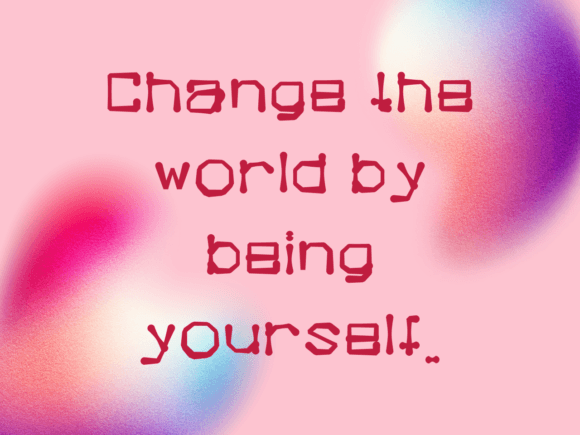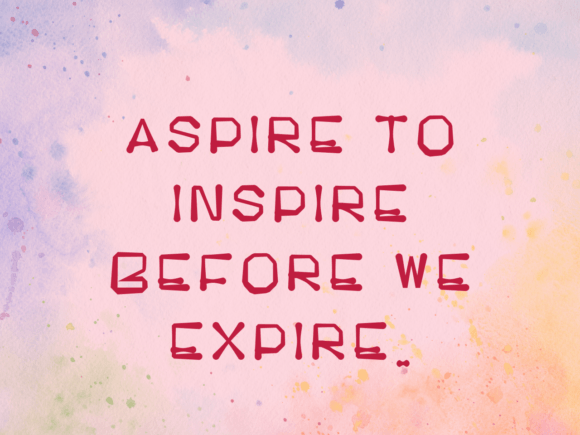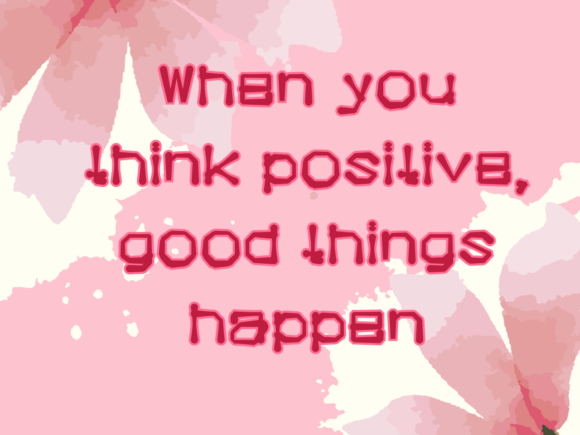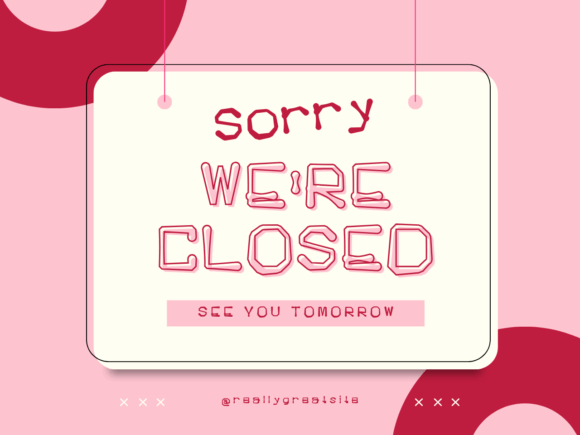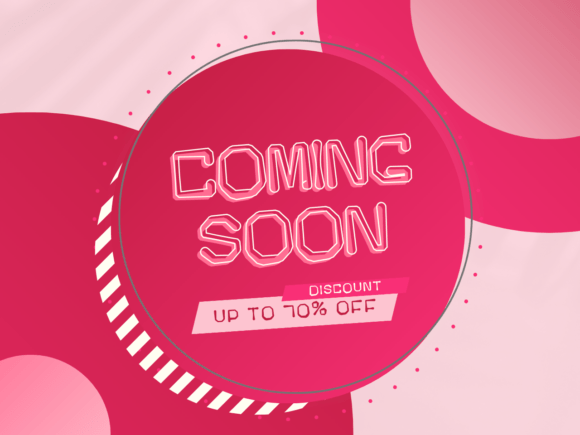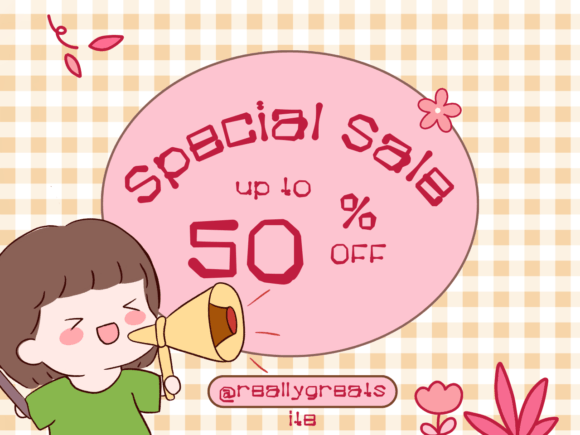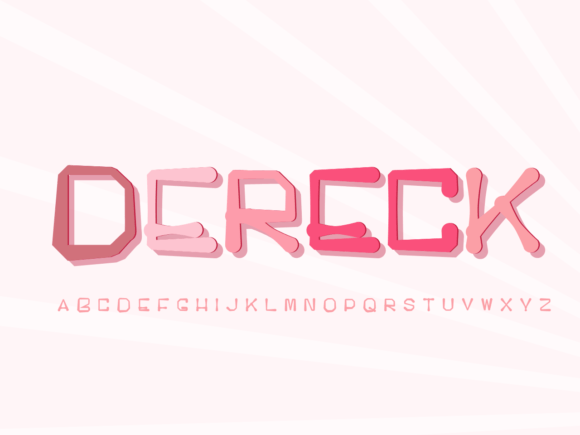
Dereck Font: Elevate Your Creative Projects with this Unique Display Font
Dereck is an incredibly unique display font that has been masterfully designed to become a true favorite among designers and crafters. With its distinctive style and versatility, this font has the potential to bring each of your creative ideas to the highest level. In this article, we’ll dive into the world of Dereck Font, exploring its features, benefits, and uses, as well as provide tips on how to make the most of this exceptional font.
What Makes Dereck Font So Special?
Dereck Font is a one-of-a-kind display font that boasts a bold and eye-catching design. Its unique letterforms and typographic elements make it stand out from other fonts, giving it a distinctive personality that can add a touch of sophistication and elegance to any design project. Whether you’re working on a logo, branding materials, or marketing collateral, Dereck Font is sure to make a lasting impression.
Key Features of Dereck Font
- Unique Letterforms: Dereck Font features distinctive letterforms that are both stylish and legible.
- Bold and Eye-Catching: The font’s bold design makes it perfect for headlines, titles, and other display text.
- Versatile: Dereck Font can be used for a wide range of design projects, from logos and branding materials to marketing collateral and more.
- Easily Customizable: The font is highly customizable, allowing you to adjust the size, color, and style to suit your design needs.
Benefits of Using Dereck Font
So, why should you choose Dereck Font for your design projects? Here are just a few benefits of using this exceptional font:
- Adds Visual Interest: Dereck Font’s unique design adds visual interest to any design project, making it perfect for titles, headlines, and other display text.
- Enhances Brand Identity: The font’s distinctive style can help to create a strong brand identity that sets you apart from the competition.
- Increases Legibility: Despite its bold design, Dereck Font is highly legible, making it perfect for use in a wide range of design projects.
- Saves Time: With Dereck Font, you can create professional-looking designs in no time, thanks to its ease of use and customization options.
Tips for Using Dereck Font
To get the most out of Dereck Font, here are a few tips to keep in mind:
- Use it Sparingly: While Dereck Font is perfect for display text, it’s best to use it sparingly to avoid overwhelming the reader.
- Experiment with Colors: Try out different colors and gradients to add depth and interest to your design.
- Pair it with Other Fonts: Combine Dereck Font with other fonts to create a unique and visually appealing typography.
- Pay Attention to Size: Make sure to adjust the font size to suit your design needs, using larger sizes for headlines and smaller sizes for body text.
Who Can Benefit from Dereck Font?
Dereck Font is perfect for a wide range of designers and crafters, including:
- Graphic Designers: Add a touch of sophistication and elegance to your design projects with Dereck Font.
- Logotype and Branding Experts: Create a strong brand identity with Dereck Font’s unique and memorable design.
- Digital Artists: Use Dereck Font to add a bold and eye-catching element to your digital art.
- Crafters and Makers: Add a professional touch to your craft projects with Dereck Font’s highly legible and customizable design.
| Author | Pukka De |
In conclusion, Dereck Font is an incredibly unique display font that has the potential to bring each of your creative ideas to the highest level. With its bold and eye-catching design, versatility, and ease of use, this font is perfect for designers and crafters looking to add a touch of sophistication and elegance to their design projects. Whether you’re working on a logo, branding materials, or marketing collateral, Dereck Font is sure to make a lasting impression.